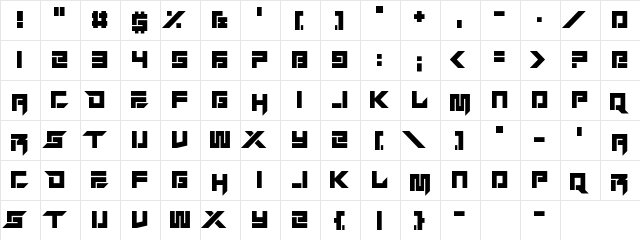
Lucid Streams Laminar Regular
Design Context for Lucid Streams Laminar Typeface
Lucid Streams Laminar is a composed and adaptable typeface that performs quietly and consistently across a wide range of design contexts.